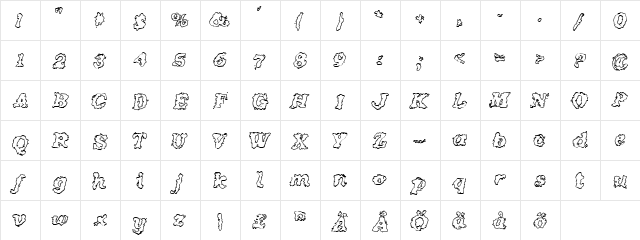
Crash Outline Regular
Design Context for Crash Outline Typeface
Crash Outline is built around its visual character rather than neutral utility — its distinctive forms are designed to make an impression at display sizes.
Font Pairing: Pair with a clean neutral sans-serif for body copy to let Crash Outline's character lead without overwhelming the composition.
Pro Tip: Treat Crash Outline as the centrepiece of your typographic hierarchy. One strong heading set in a decorative face can carry an entire layout.